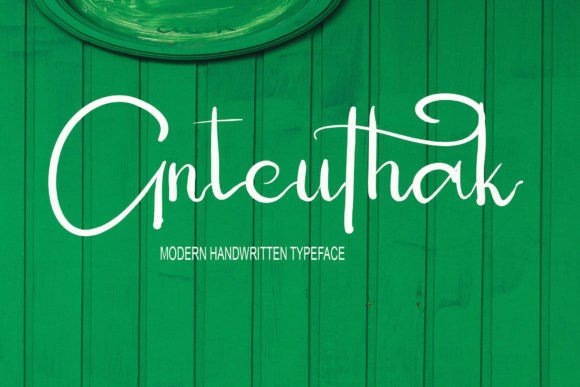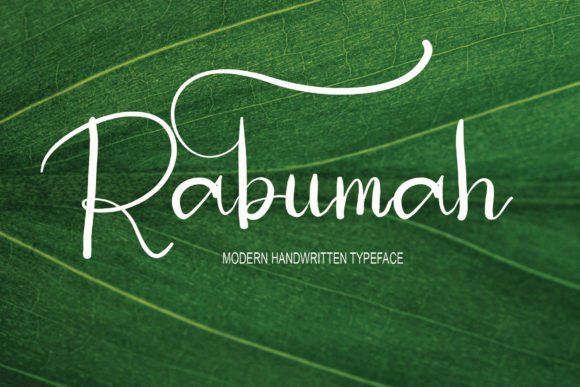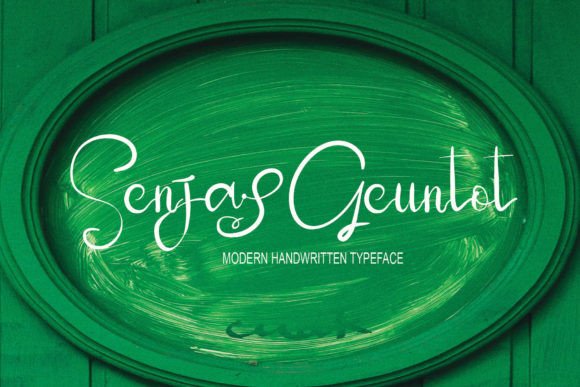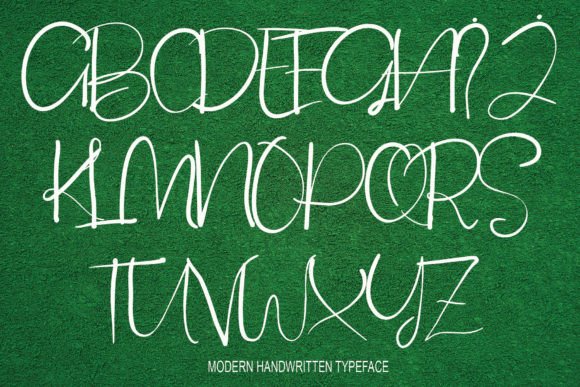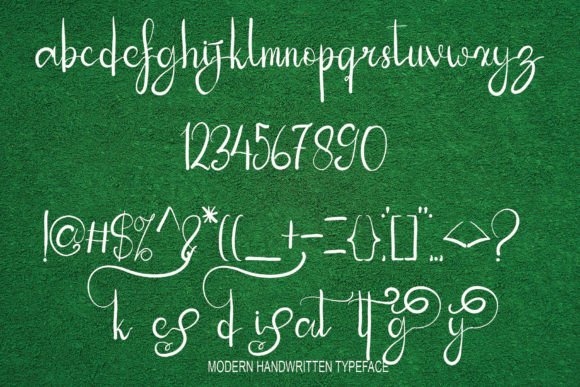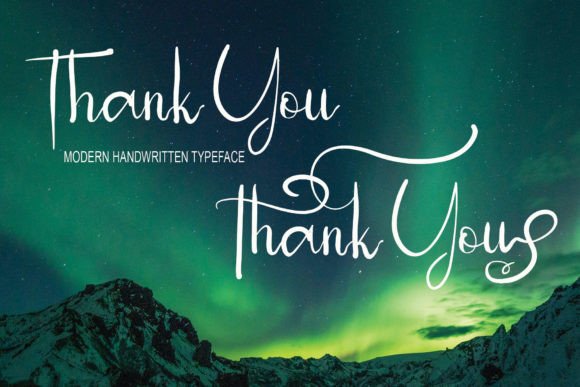
The Birth of a Versatile Font
Have you ever been in a moment of pure creative bliss, where the world around you fades away, and all that’s left is the hum of your computer and the scratch of your pen on paper? For many designers, this is where the magic happens. And for us, it’s where the Gunong Font was born – a beautiful, handcrafted typeface that’s as simple as it is stylish.
Created using a tablet, the Gunong Font is a versatile tool for designers looking to add a personal touch to their projects. Whether you’re crafting a website, designing wedding invitations, or creating business cards, this font is the perfect companion. And with its cool, stylish vibe, you can bet it’ll make your designs stand out from the crowd.
- Unique Characteristics: Gunong Font features a unique blend of traditional and modern design elements, with intricate details and ornaments that set it apart from other fonts.
Gunong Font Review
Overall, I’m impressed with Gunong Font’s unique blend of traditional and modern elements. ✨ The font’s clean lines and simple shapes give it a timeless feel, while the subtle nuances in its design create a sense of depth and character. ✨ The font’s versatility makes it suitable for a wide range of applications, from body text to headings and even logos.
- Unique blend of traditional and modern elements
- Clean lines and simple shapes for a timeless feel
- Subtle nuances in design create a sense of depth and character
- Versatility in use, suitable for various applications
- May not be suitable for extremely large or small font sizes, as it can become pixelated
- Lack of bold and italic variations may limit its use in certain situations
- May not be as attention-grabbing as more dramatic or bold fonts
Overall, I would give Gunong Font 4 out of 5 stars. While it has some limitations, its unique design and versatility make it a great choice for many projects. With some careful consideration of its limitations, Gunong Font can be a valuable addition to any designer’s toolkit.
Gunong Font is ideal for:
1. Creating a unique and modern look for business cards and brochures.
2. Adding a touch of elegance to wedding invitations and stationery.
3. Designing a professional and sophisticated logo.
4. Creating eye-catching social media graphics and ads.